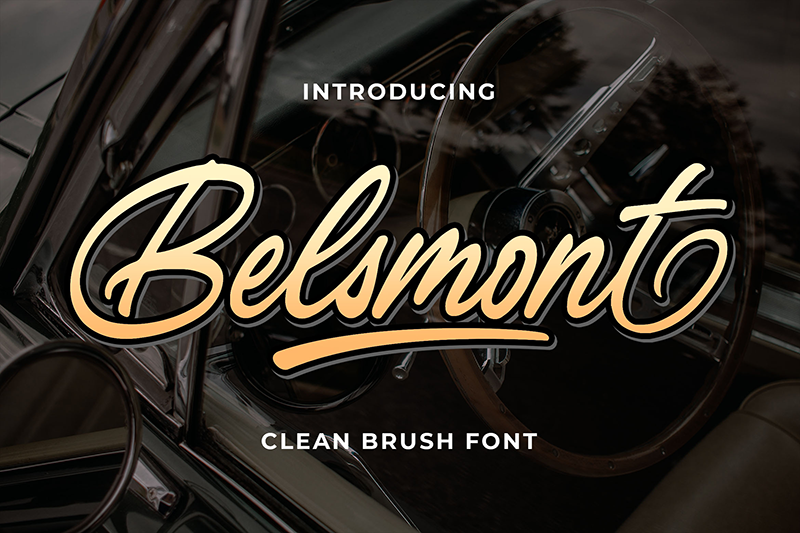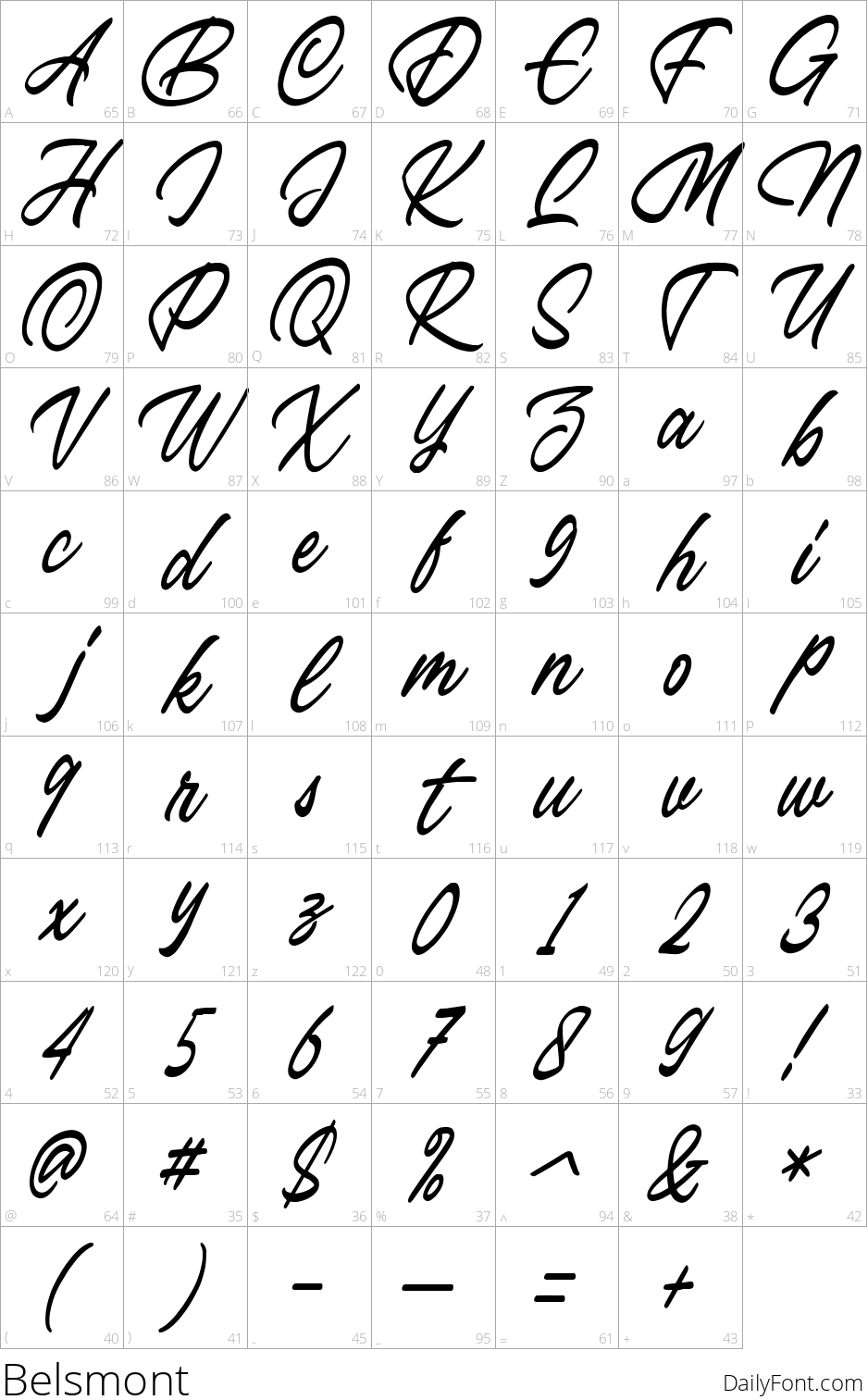
Belsmont is a stunning script font that exudes a cool and modern vibe. Perfect for creative projects, this unique typeface will inspire your design journey and elevate your branding.